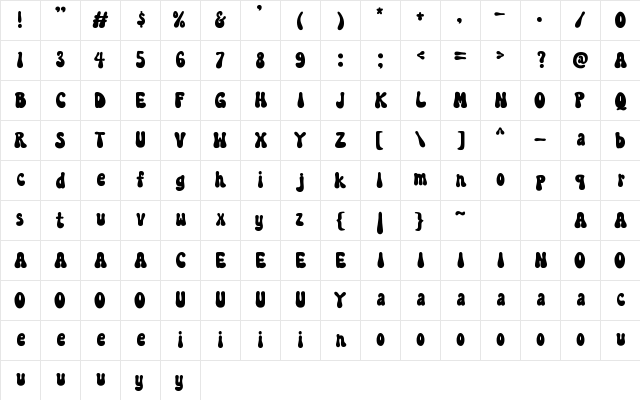
Night Kinds Regular Free Font
Night Kinds Regular
Designer: Saktype Studio
Design Context for Night Kinds
Night Kinds is a composed and adaptable typeface that performs quietly and consistently across a wide range of design contexts.